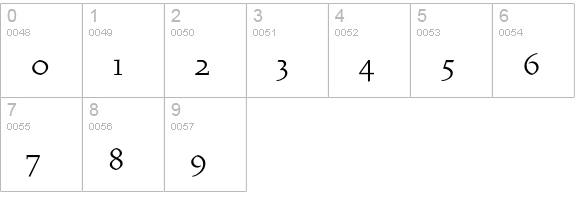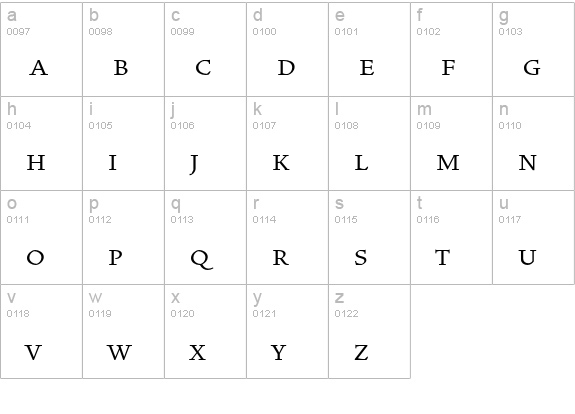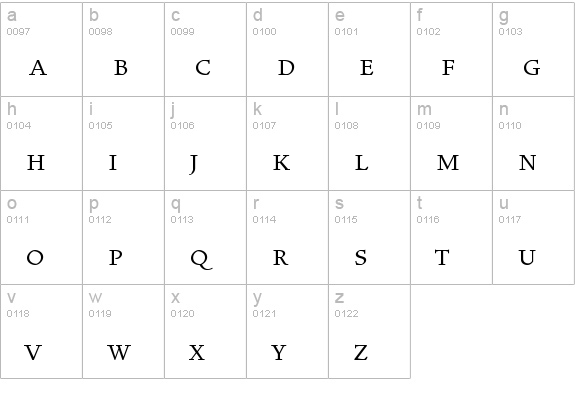
VendettaLightPetiteCaps Font Details
VendettaLightPetiteCaps font is a stunning typeface that exudes elegance and sophistication. This font is perfect for adding a touch of class to any design project, whether it's a logo, invitation, or a headline for a magazine. Its refined and delicate curves give it a unique and captivating appearance that will surely capture the attention of your audience. With its slender and graceful letterforms, VendettaLightPetiteCaps font brings a sense of finesse and refinement to any composition. Its petite capital letters add a touch of distinction and make it a perfect choice for titles and headings. The clean and crisp lines of this font make it highly legible, ensuring that your message gets across effortlessly. One of the best features of VendettaLightPetiteCaps font is that it is available for free. You can easily download this font from FontsMarket.com, a reputable source for high-quality fonts. Whether you are a professional designer or a hobbyist, having access to this stunning font at no cost is a true advantage. VendettaLightPetiteCaps font is versatile and adaptable, making it suitable for a wide range of design projects. Its timeless appeal ensures that it will never go out of style, making it a valuable asset for any designer's toolkit. With its free availability, there is no reason not to give this font a try and see how it elevates your next project to new heights of sophistication and beauty.